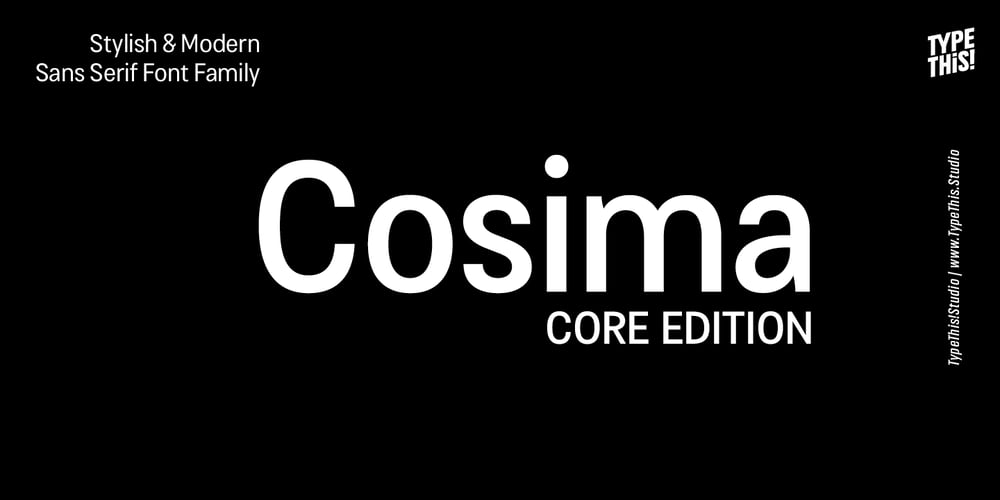
Cosima Core Edition Font Family was designed by Anita Jürgeleit and published by TypeThis!Studio. Cosima Core Edition contains 8 styles and family package options. Cosima is a sans serif workhorse with a touch of pointy elegance, designed by Anita Jürgeleit.Launching your new brand or creating a new user interface for your mobile devices – selecting characteristic typefaces is important, whether you’re creating app design, magazine or editorial – typography is always the essential part.www.typethis.studioThank you for checking Cosima. If you have any questions, please send an email to hello@typethis.studio – We are looking forward to hearing from you.